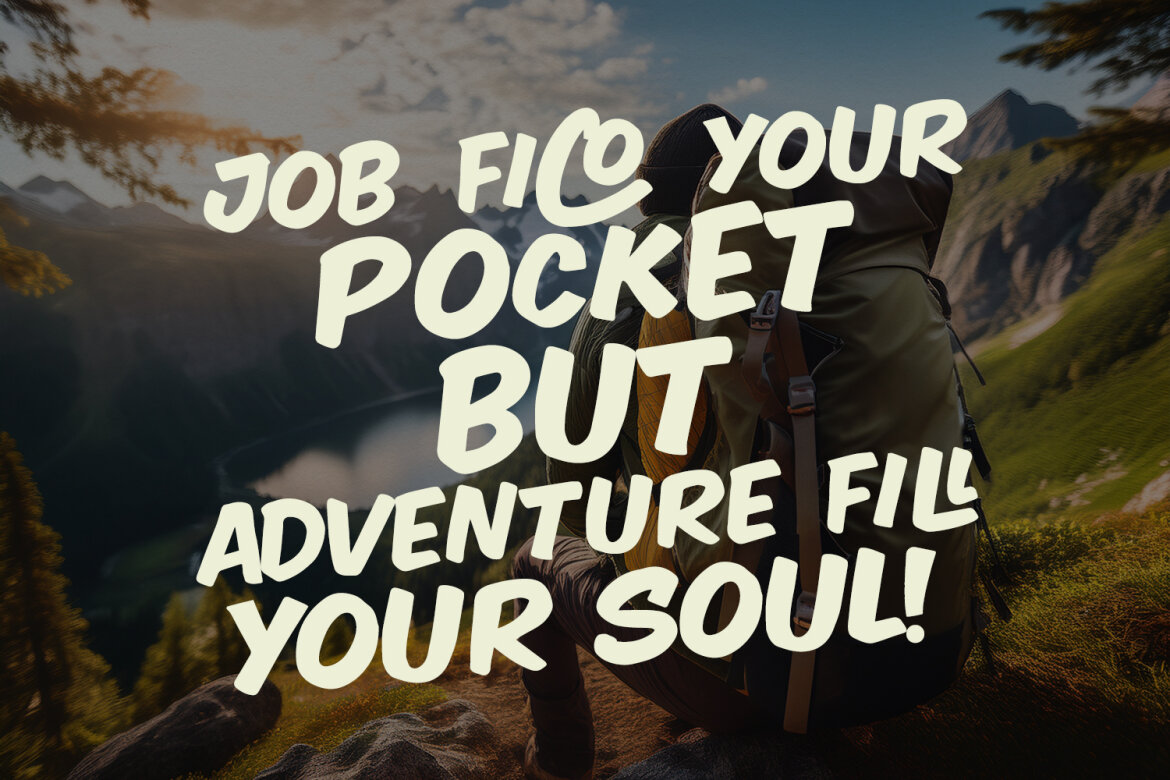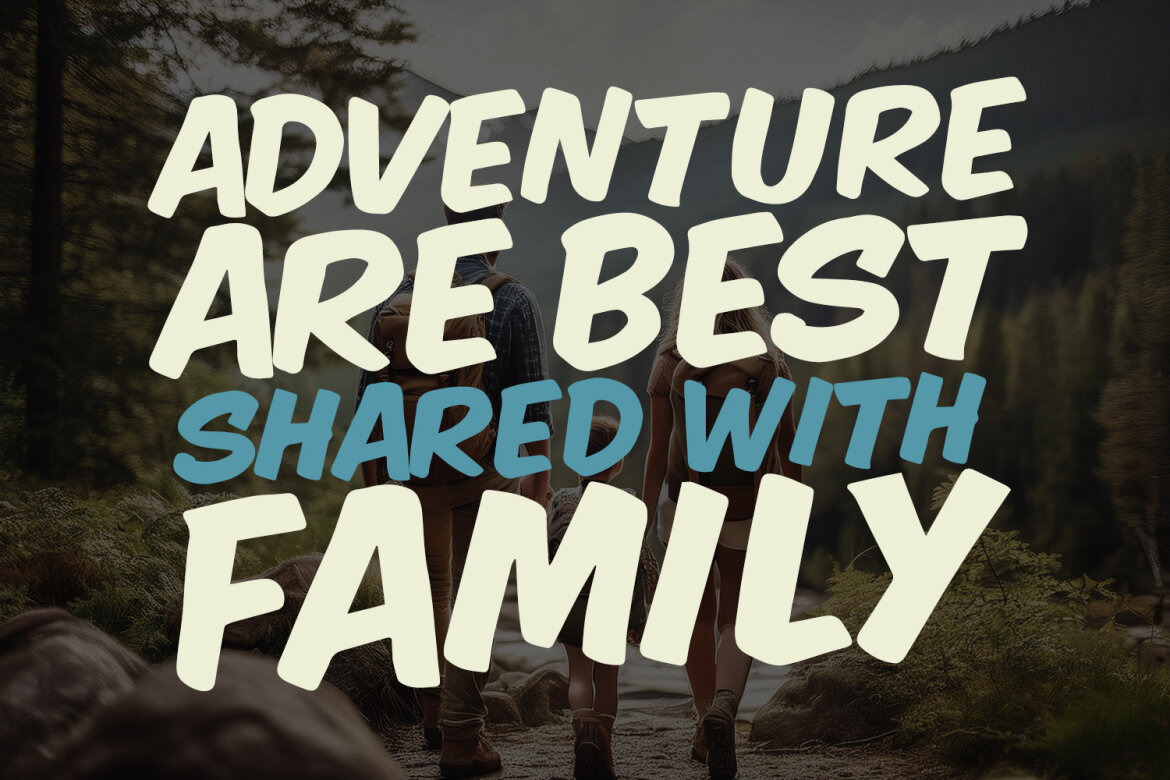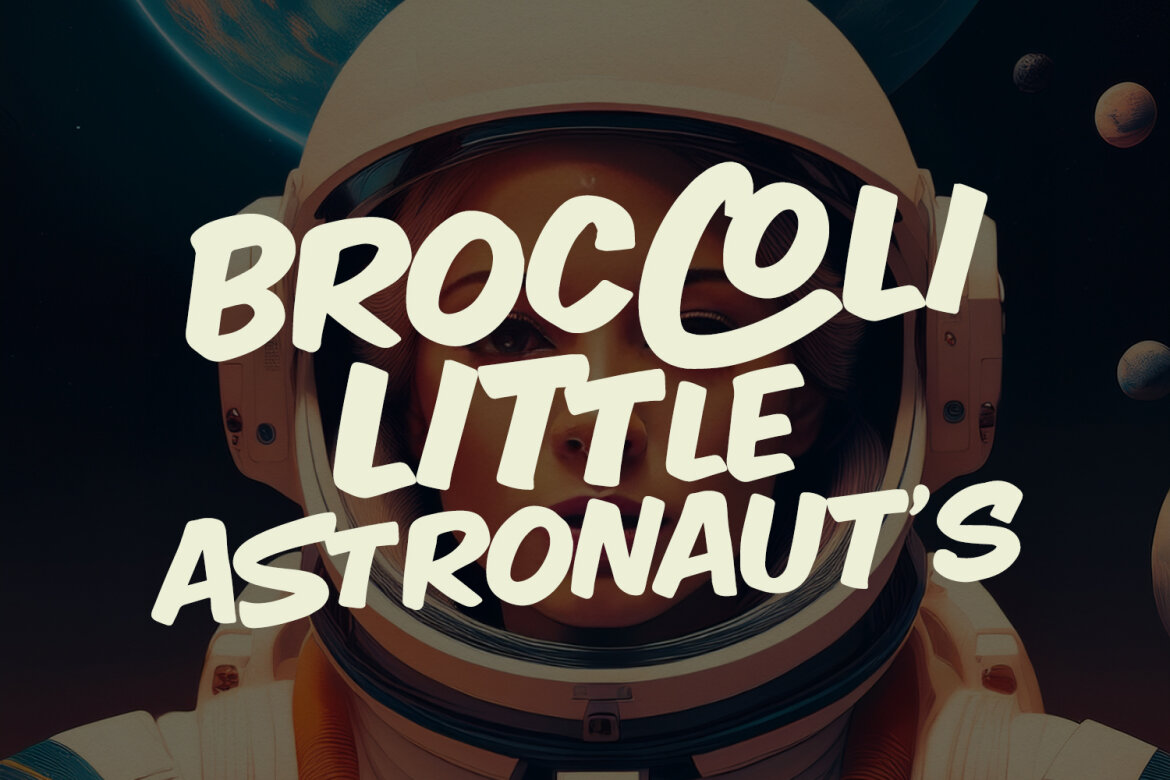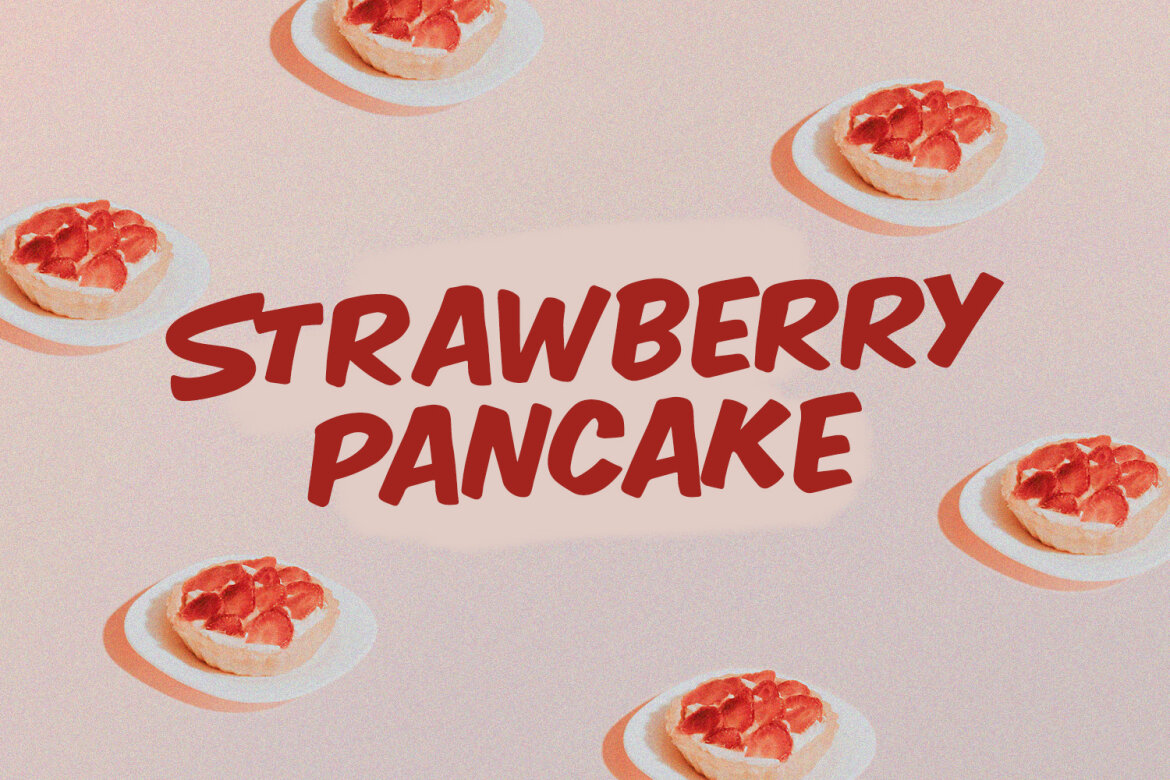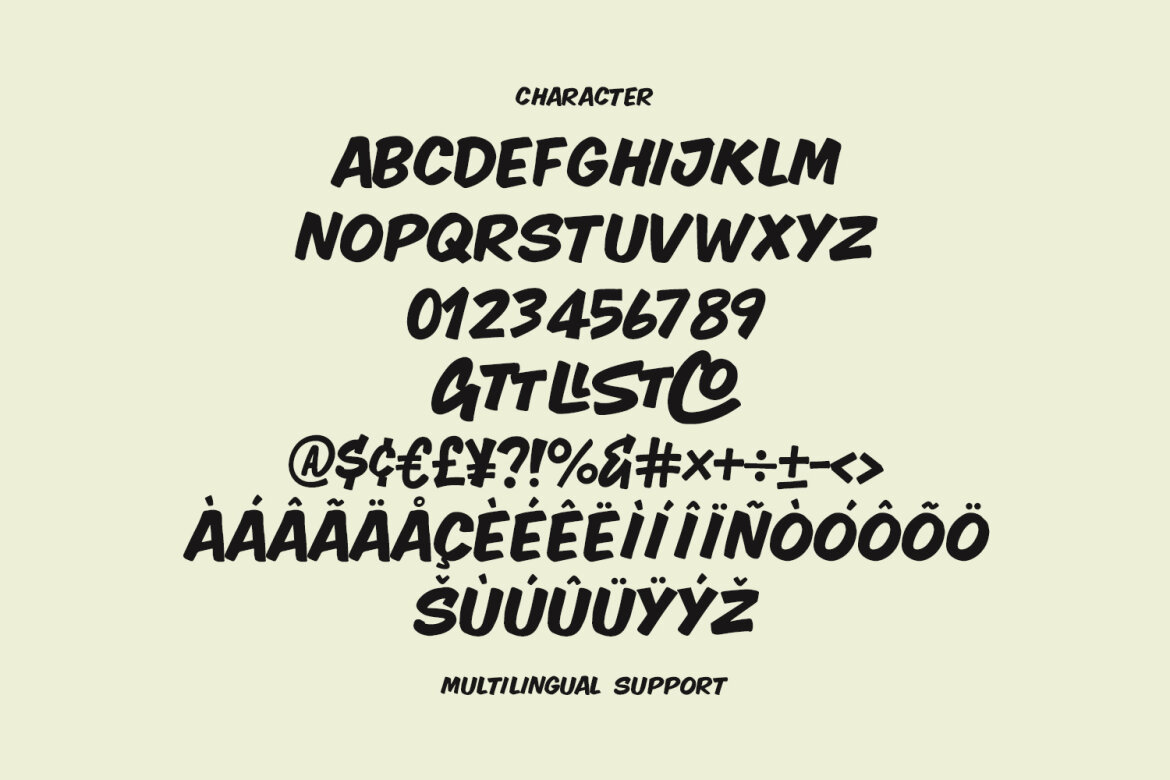
Copasty Lingers FREE Playful Font
Copasty Lingers
Unleash your creativity with Copasty Lingers, a premium handmade display font designed to give your projects a bold, energetic, and authentic touch. Crafted with natural brush strokes, this font captures a perfect balance between casual street art and professional graphic design.
Whether you are working on branding, eye-catching posters, trendy apparel, or social media content, Copasty Lingers provides a thick, impactful silhouette that ensures your message is never missed.
• Numbers and punctuation
• Multilingual Support
• Ligatures and Alternates